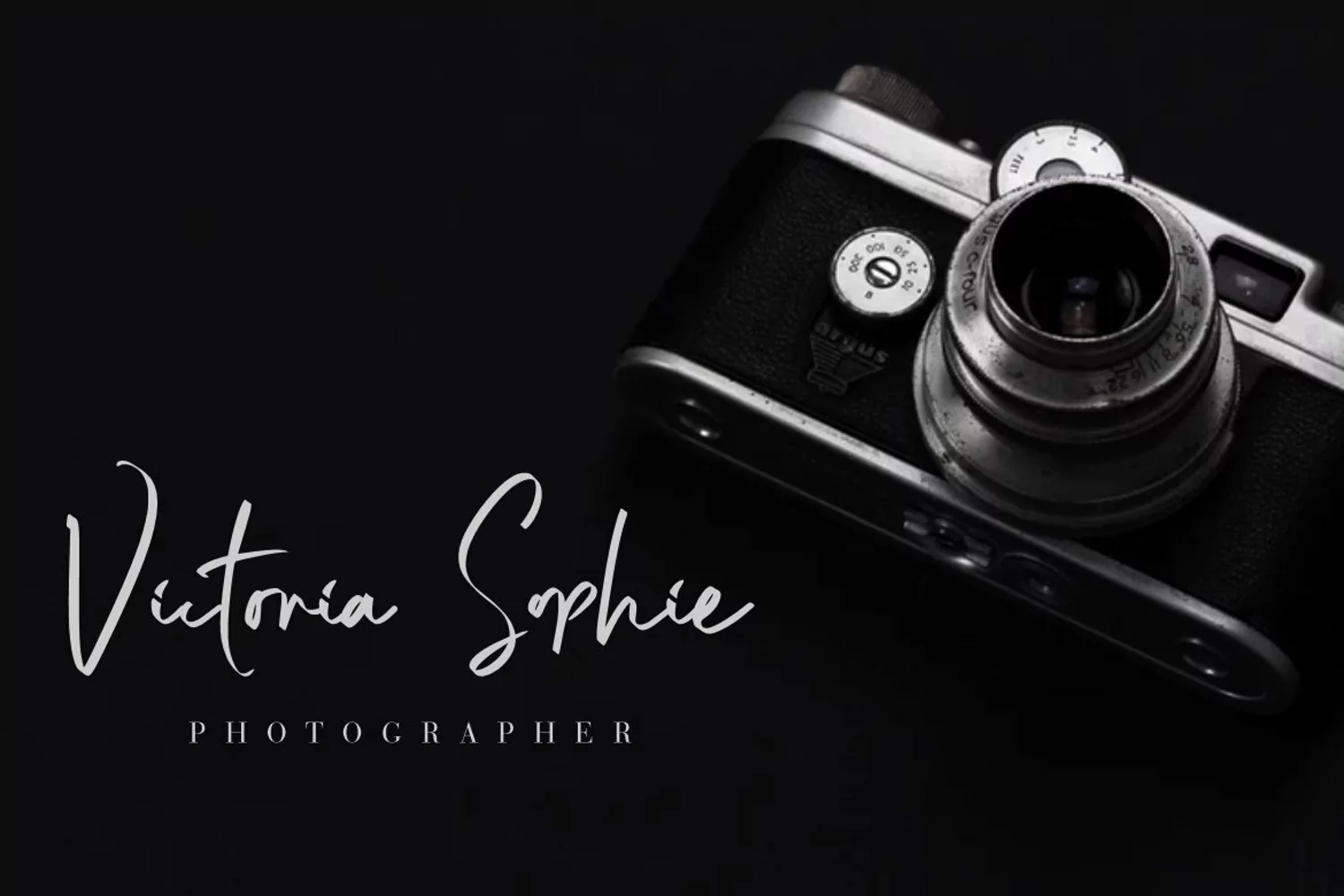
Ballomont is a beautiful Script font that exudes natural and elegance. This font is specially crafted for those who need a beautiful and refreshing look to their designs. Perfect for wedding, website, blog, signature logo and many more.. Enjoy!